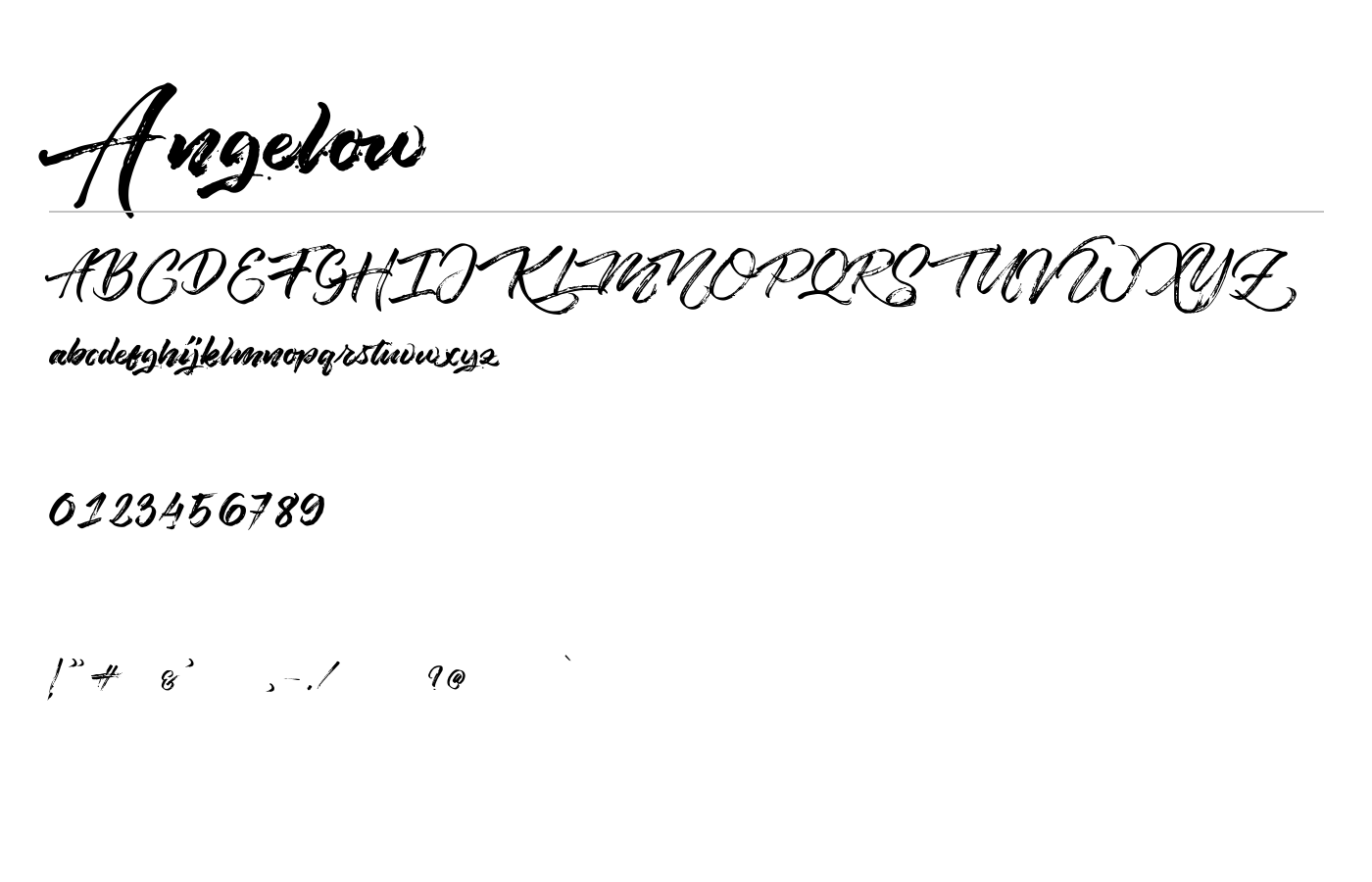
Angelow is a stylish script font with a hand-painted feel, featuring elegant and flowing letterforms that combine both sharp and textured strokes. Its lively and artistic style makes it ideal for creative branding, invitations, and logos where a sophisticated yet personal touch is desired. This font’s expressive character works well in projects that aim for a unique, handcrafted, and modern look.
Angelow Font
About Angelow Font